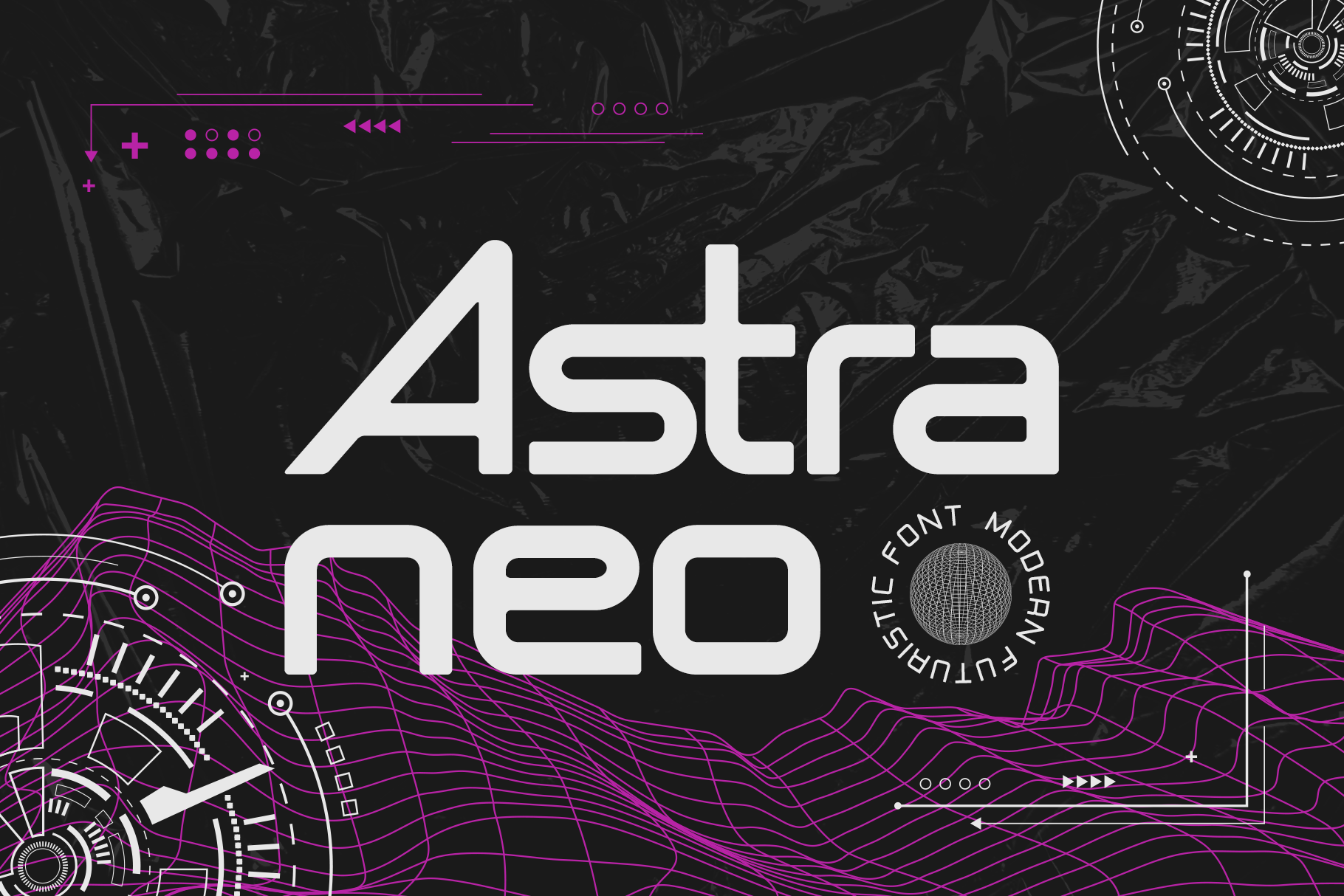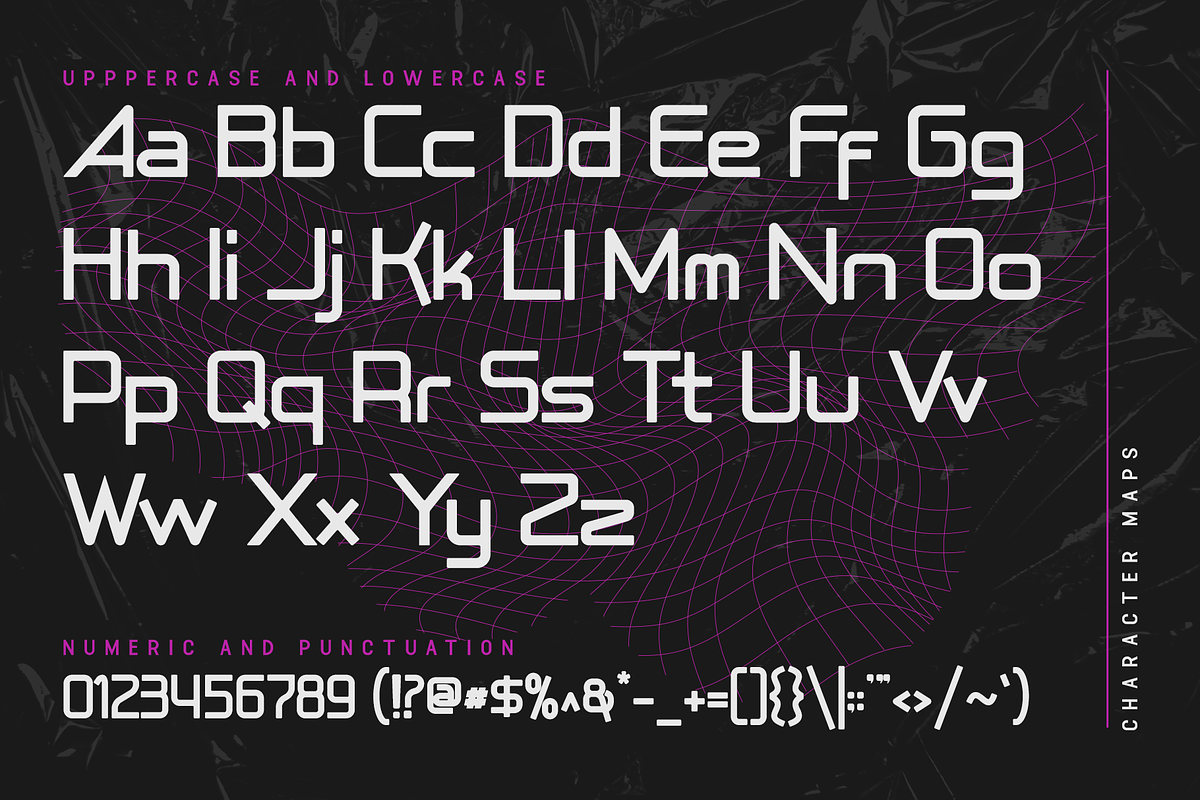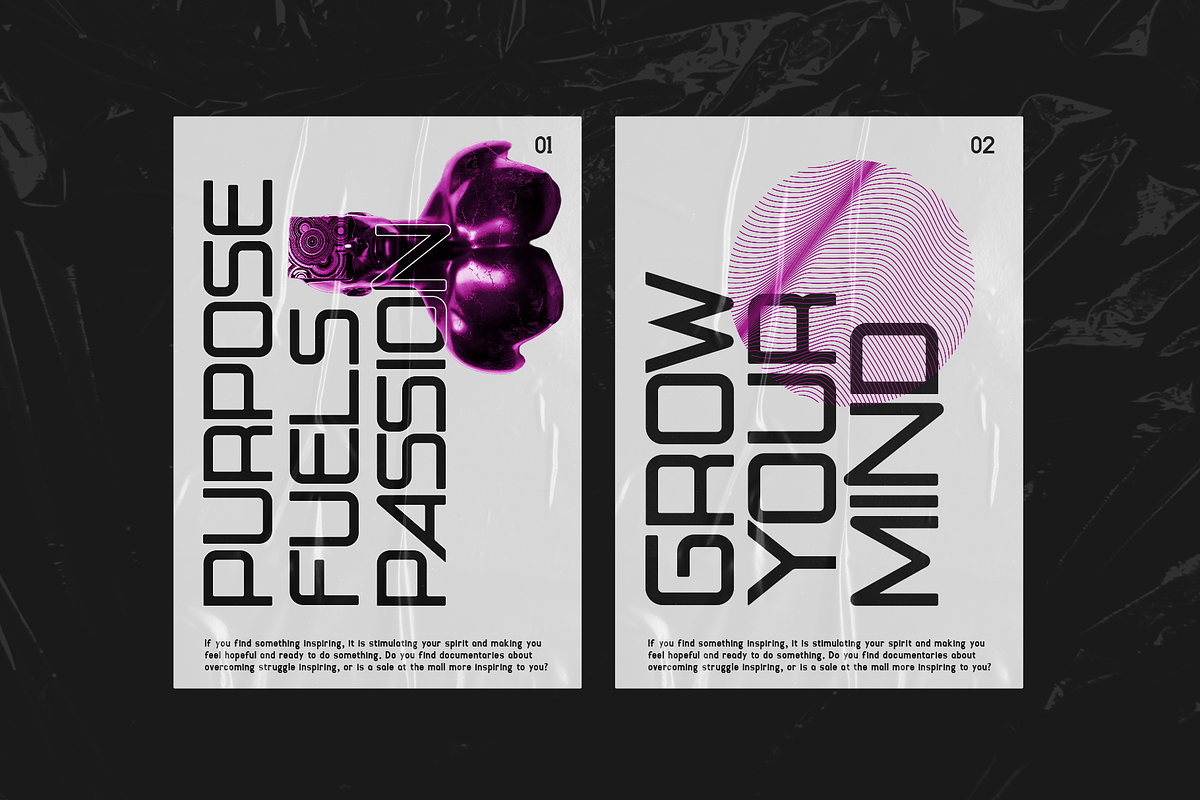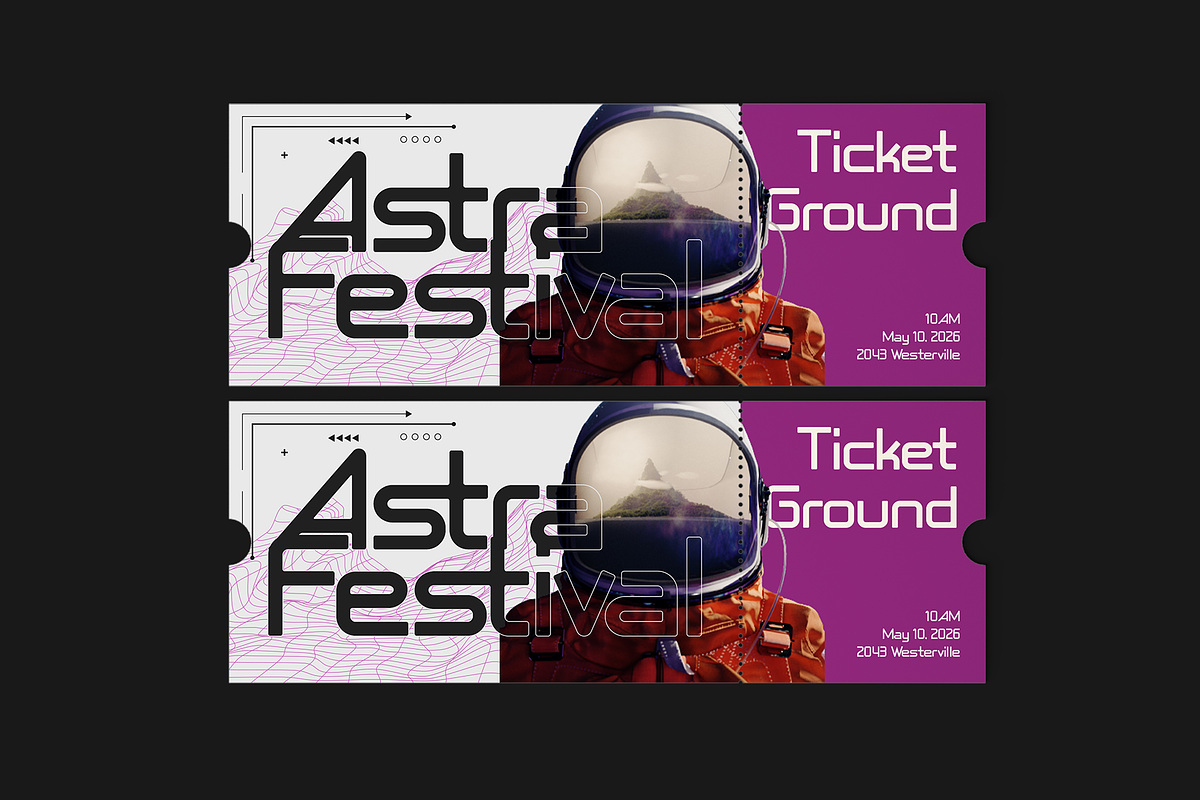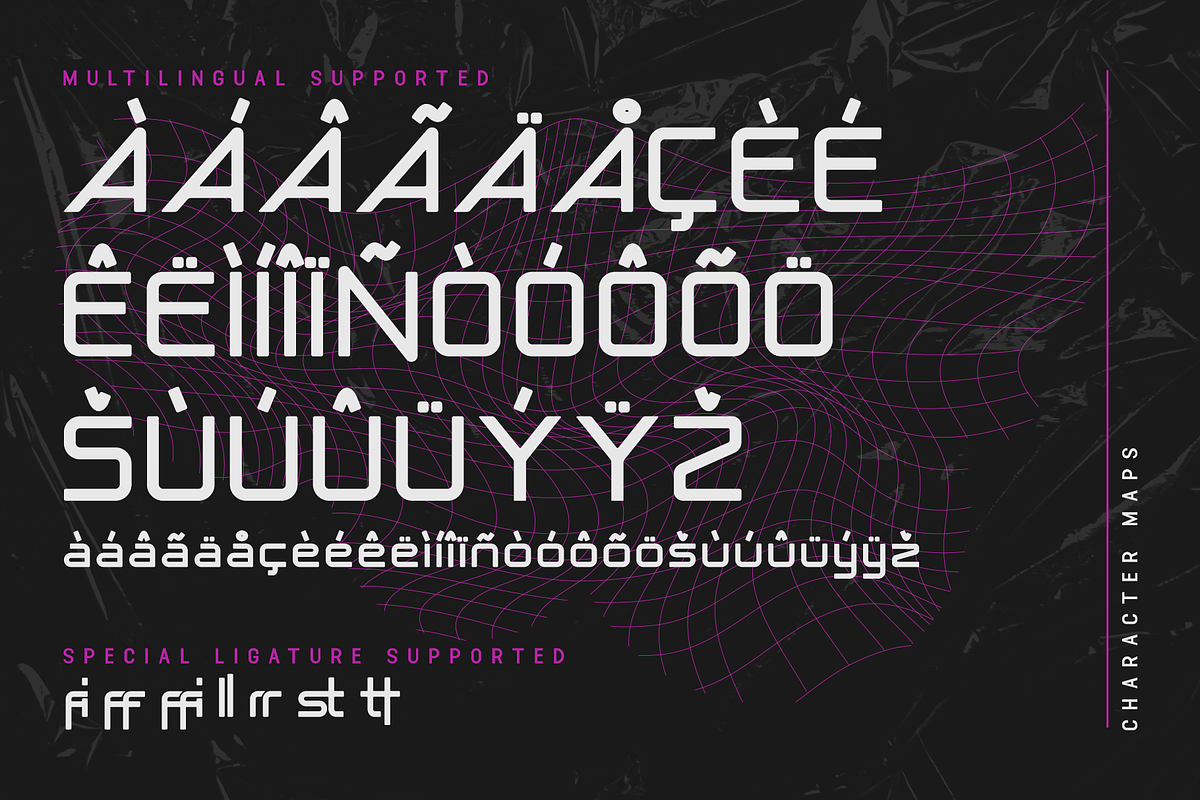
Astraneo - Modern Futuristic Font
Introducing "Astraneo," a modern futuristic font designed to elevate your projects with a sleek and cutting-edge aesthetic. Perfect for those who crave boldness and innovation, "Astraneo" brings a distinctive and contemporary look to any design.
"Astraneo" features sharp edges, clean lines, and a futuristic vibe that sets it apart from traditional fonts. It includes a comprehensive set of uppercase and lowercase letters, numerals, punctuation, and multilingual support, making it versatile for various design needs.
Ideal for technology-themed projects, branding, logo design, posters, web design, and more, "Astraneo" ensures your work stands out with a modern and avant-garde feel. Its futuristic style is perfect for projects that require a forward-thinking and dynamic look.
"Astraneo" is the go-to font for designers seeking a font that embodies the future of design.